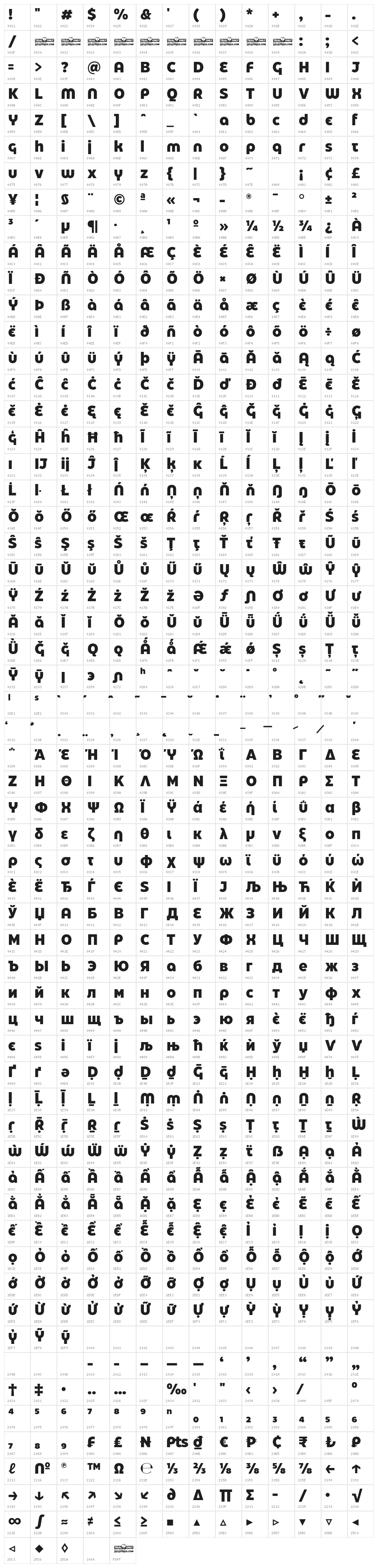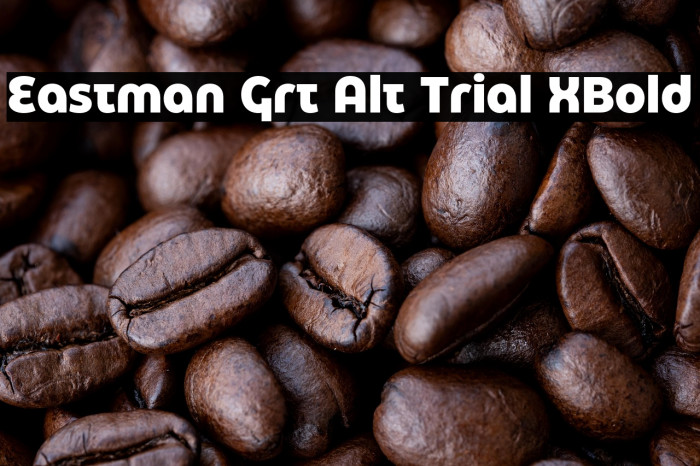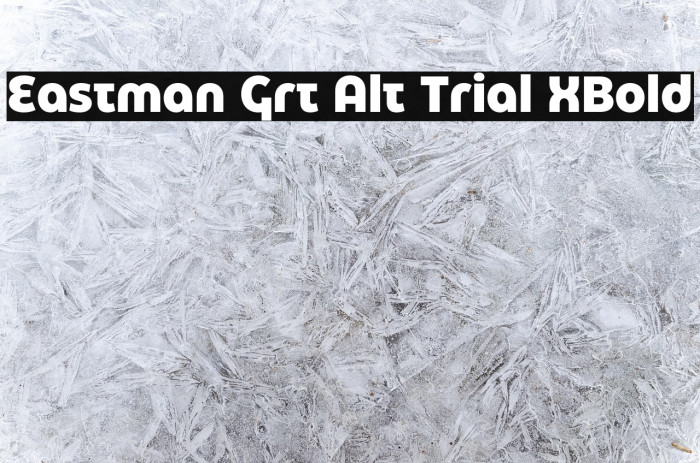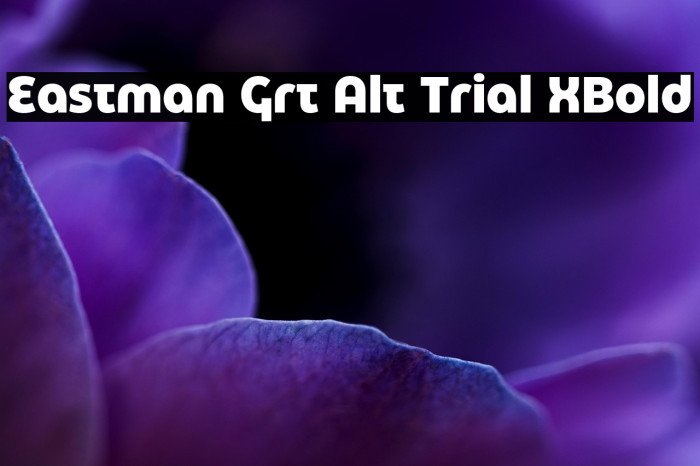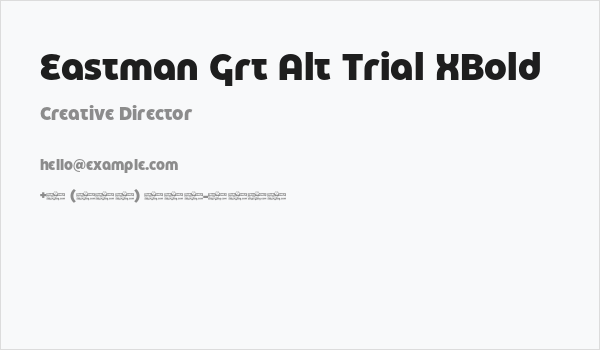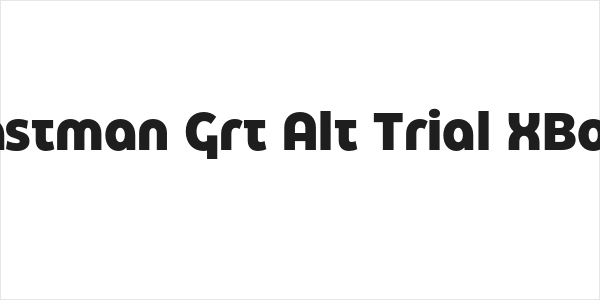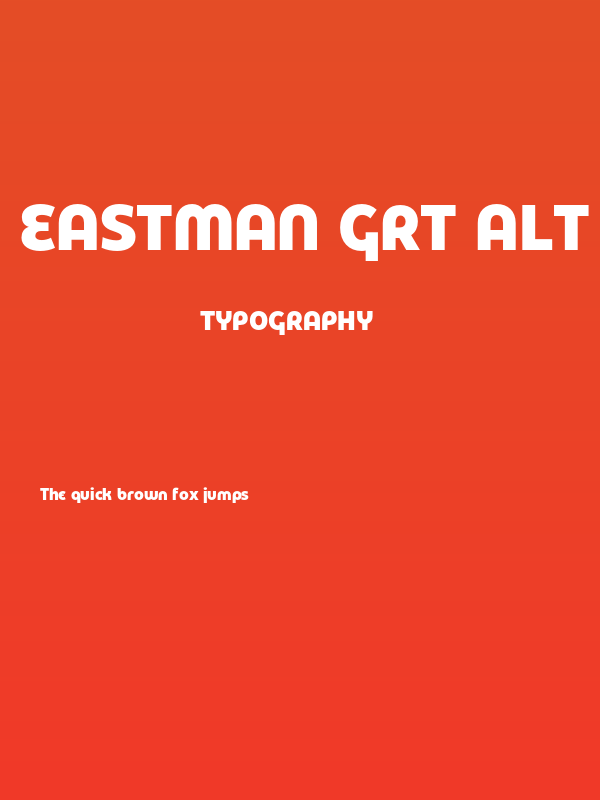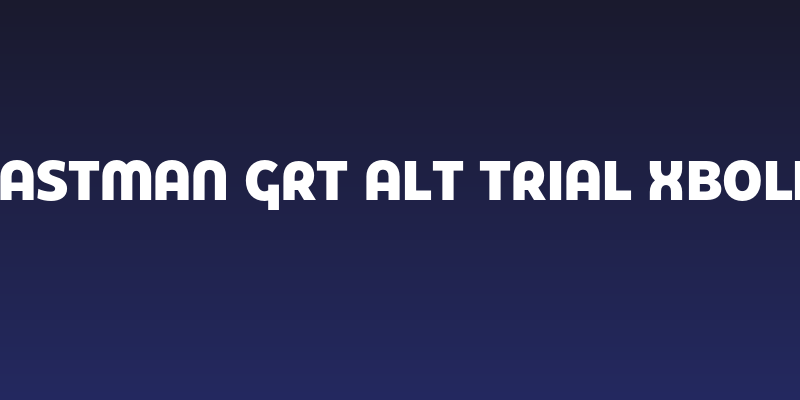
Eastman Grt Alt Trial XBold Font
Eastman Grt Alt Trial XBold Description
This font features bold, geometric letterforms with a modern and assertive style. The characters are uniformly thick, creating a strong visual impact. The uppercase and lowercase letters maintain a consistent weight, contributing to a cohesive appearance. The font's rounded edges soften its boldness, adding a touch of approachability. The numerals and special characters are designed to match the overall aesthetic, ensuring uniformity across all glyphs. This typeface is well-suited for projects that require a contemporary and striking look.